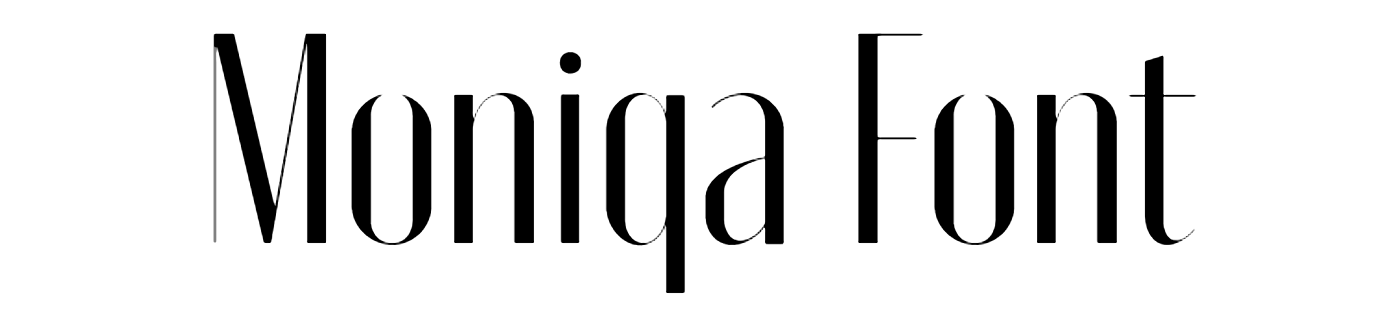
Moniqa
Moniqa is a sans serif font designed by Rajesh Rajput (2011). It has a clean, no-nonsense look that fits modern brands and websites. You get 12 styles in one free ZIP, and the preview above lets you test each one before you download.
- Designer: Rajesh Rajput
- Font styles: 12 (Thin Condensed Display, Extra Light Narrow Italic Paragraph, Medium Condensed Italic Display, Bold Condensed Display, Semi Bold Condensed Display, Extra Bold Narrow Italic Paragraph, Black Condensed Display, Condensed Display, Paragraph, Narrow Display and Italic Display)
- Weights: Thin (100) to Black (900)
- Glyphs: 865 in the Thin Condensed Display style
- OpenType features: Ligatures (including optional ones), stylistic alternates, one stylistic set and fractions
You get every letter from A to Z in both cases and all the numbers from 0 to 9, which means Moniqa can handle full sentences, dates and prices. Everyday marks like &, !, ? and @ are there too. Thanks to its accented letters, it also works for Spanish, French, German, Portuguese and Italian, not just English. On top of that, it includes Cyrillic characters. Of its 865 glyphs, about 204 are not on your keyboard at all. That is where the alternates explained below live.
Where Moniqa Works Best
Think of Moniqa for websites, app screens and clean logos. It works for headings and body text alike. If the download has several weights, use a heavier one for titles and a lighter one for paragraphs. Because the family has more than one style, you can mix them in a single design for headings, subheadings and highlights.
Yes. Moniqa includes the accented letters needed for Spanish, French, German, Portuguese and Italian, so it works for more than just English.